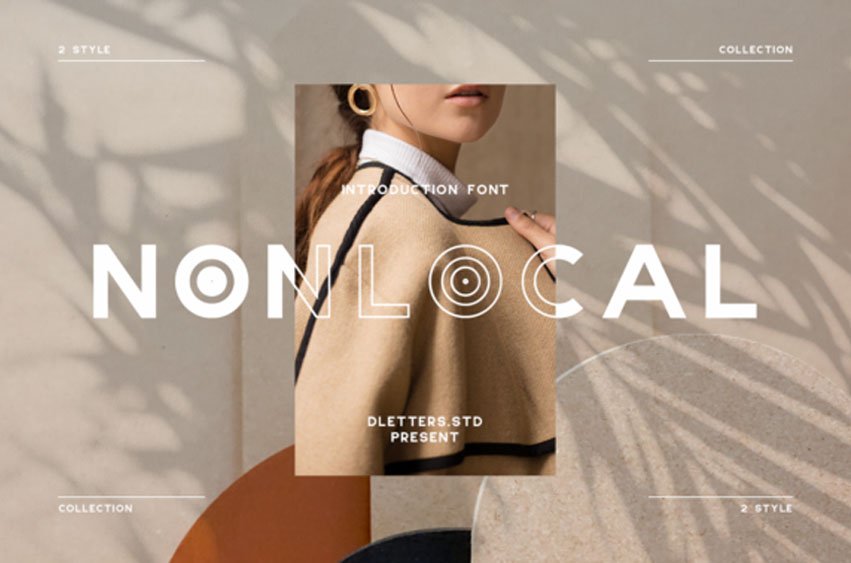
Nonlocal Font
Nonlocal Font is a cool, modern and simple display font.
No matter the topic, this font will be an incredible asset to your fonts’ library, as it has the potential to elevate any creation.